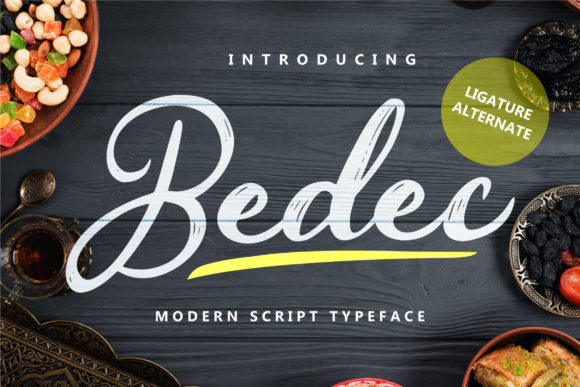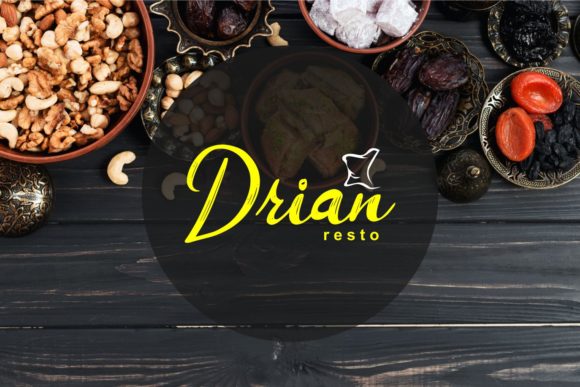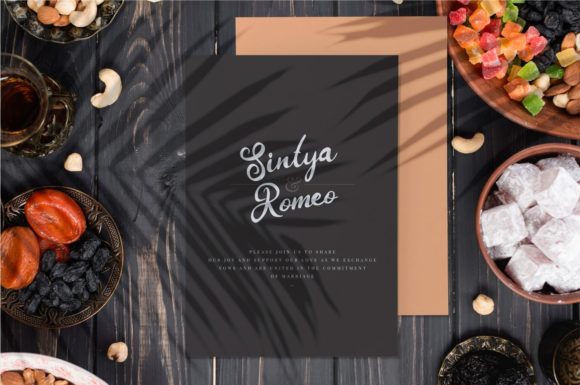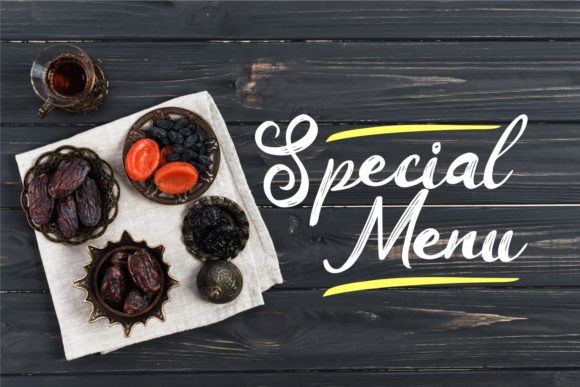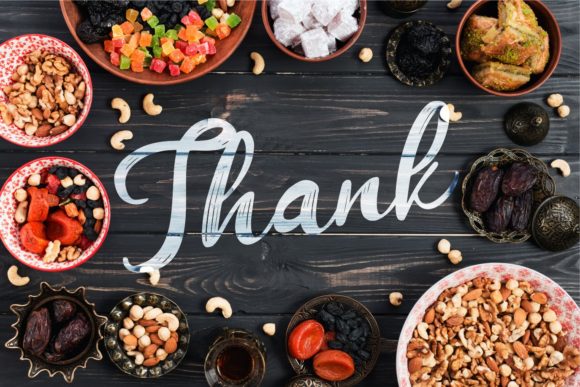
HomeScript FontsBedec Font Script Fonts Bedec Font FacebookXPinterestWhatsApp Bedec Font Poster 2 Bedec Font Poster 3 Bedec Font Poster 4 Bedec Font Poster 5 About Bedec Font Bedec is a fun and cool handwritten script with a bold feel. DOWNLOAD ON CREATIVE FABRICAThis font is sold and delivered by Creative Fabrica. Font Canyon may earn a commission if you buy through this link. People also explored Expression Exchange Font Pandemi Font Rimouski The Black out Font Yellow Ginger Font Brandogram Bold Monogram Typeface Font Leonita Font Outdate Sunrise Trip Font 428 0 TagsBedec Font Previous articleBad Ride FontNext articleEmerald Font LEAVE A REPLY Cancel reply Comment: Please enter your comment! Name:* Please enter your name here Email:* You have entered an incorrect email address! Please enter your email address here Website: Save my name, email, and website in this browser for the next time I comment. Personal Use Free Tahu Font Personal Use Free Read more about this font UseYourImagination Personal Use Free Read more about this font Artisan Signature Personal Use Free Read more about this font Laneway Personal Use Free Read more about this font BLOG Free vs Paid Fonts: Why Investing in Premium Fonts Is Worth It Free vs Paid Fonts: Why Premium Fonts Are Worth It in 2025 The debate of free vs paid fonts continues in the design world. While... Free Fonts Risk: Why Free Fonts Can Be Dangerous for Designers Top 10 Handwritten Fonts That Elevate Your Designs Fonts That Capture the Spirit of New York City